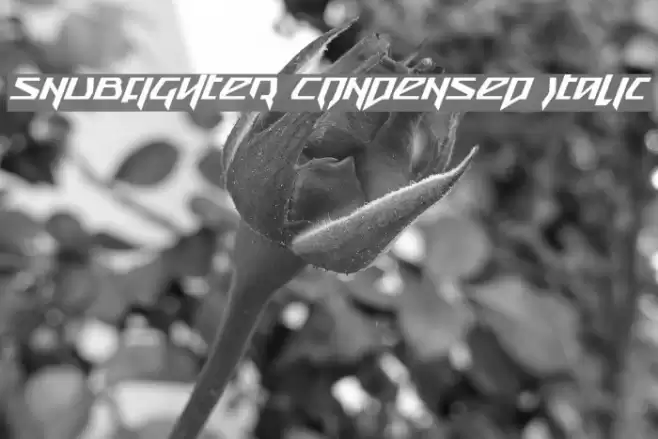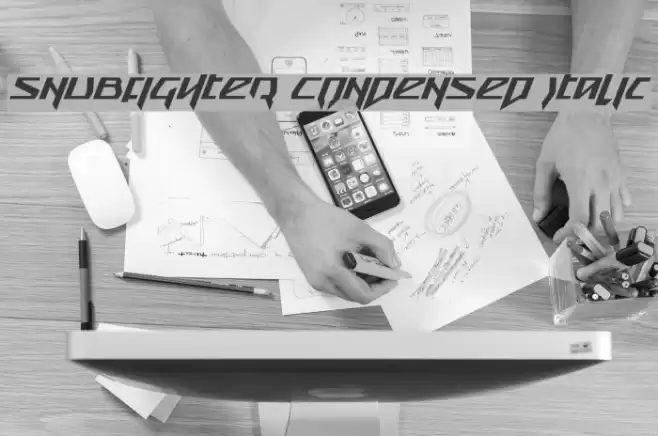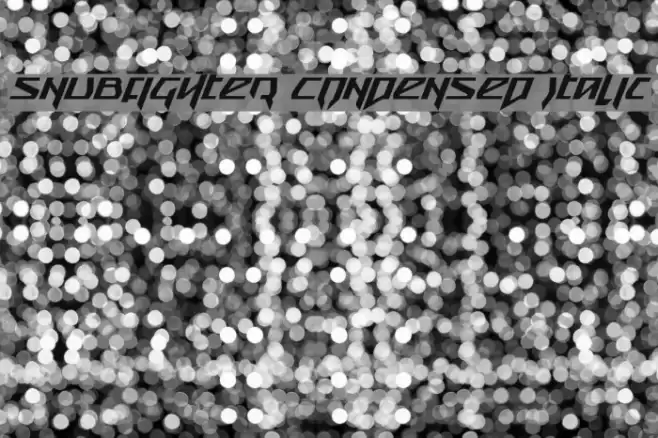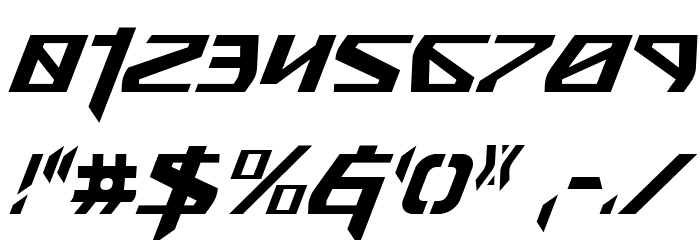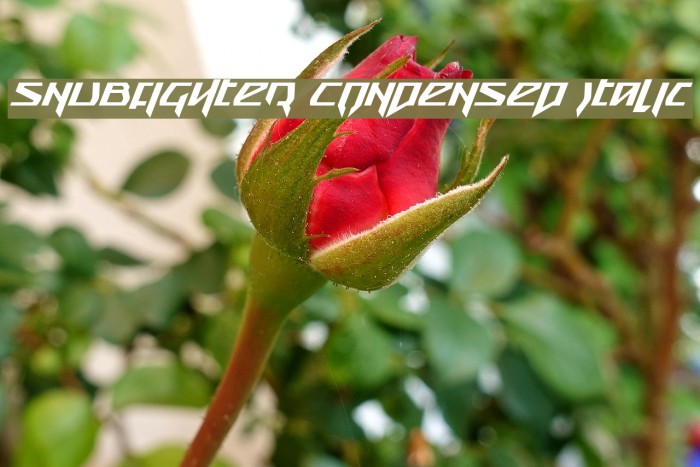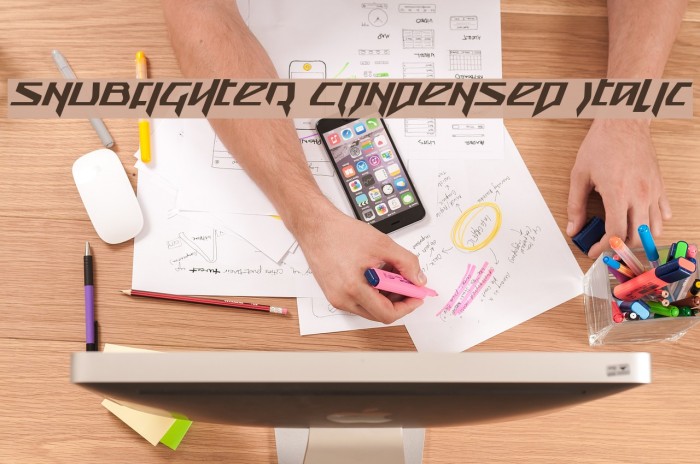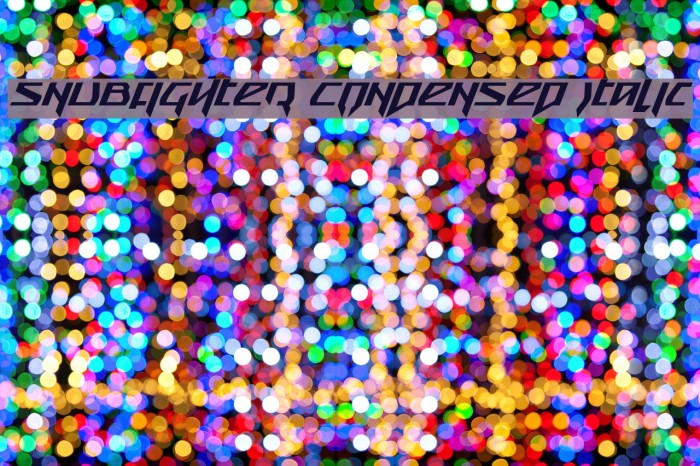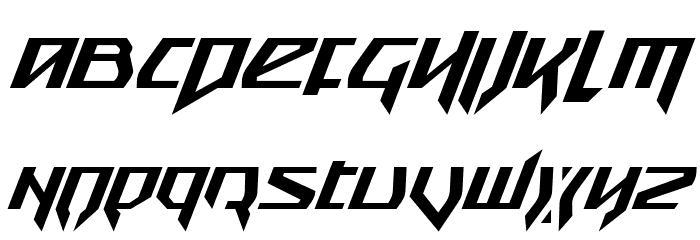
Snubfighter Condensed Italic Font
Snubfighter Condensed Italic Description
This font features a bold, angular design with sharp, geometric edges that convey a sense of speed and modernity. The characters are condensed and italicized, giving them a dynamic and forward-leaning appearance. The strokes are thick and consistent, creating a strong visual impact. The font's aggressive style is reminiscent of futuristic or sci-fi themes, making it suitable for projects that require a bold and edgy look. The uppercase and lowercase letters maintain a uniform style, while the numerals and special characters complement the overall design with similar angular features.
A bold, angular, and condensed italic font with a futuristic style from Sci-fi fonts.
- Proposed Projects: Ideal for sci-fi themed posters, video game titles, branding for tech companies, and edgy graphic design projects.
- Character Spacing: Tight
- Overall Style: Futuristic